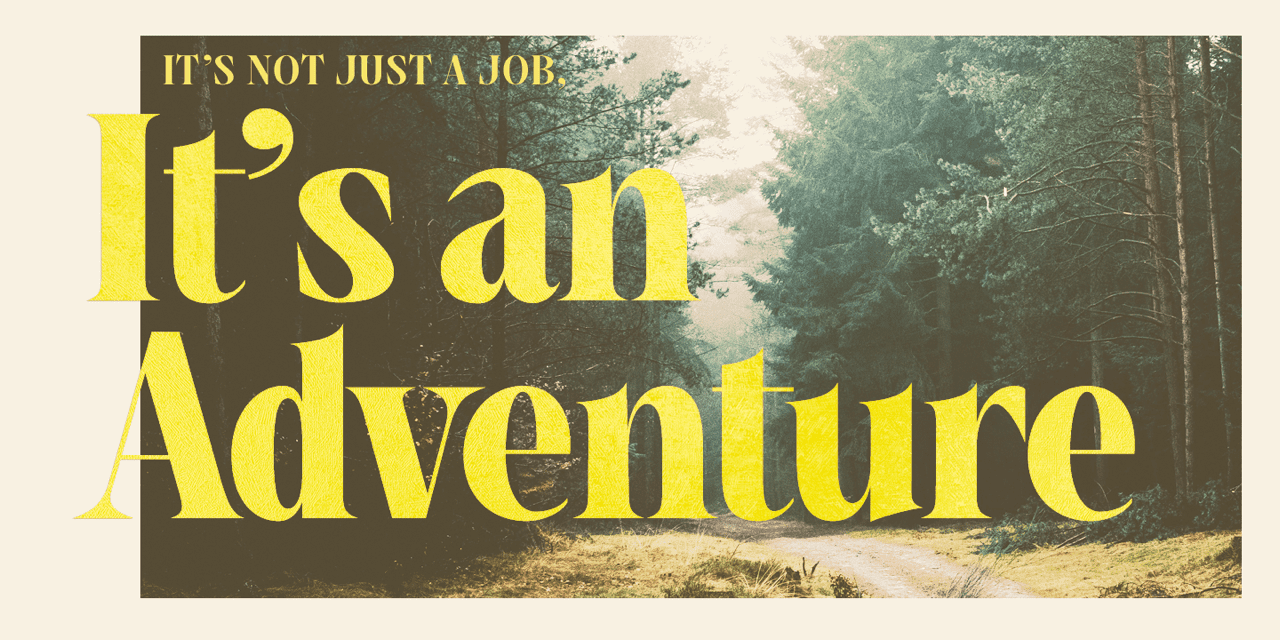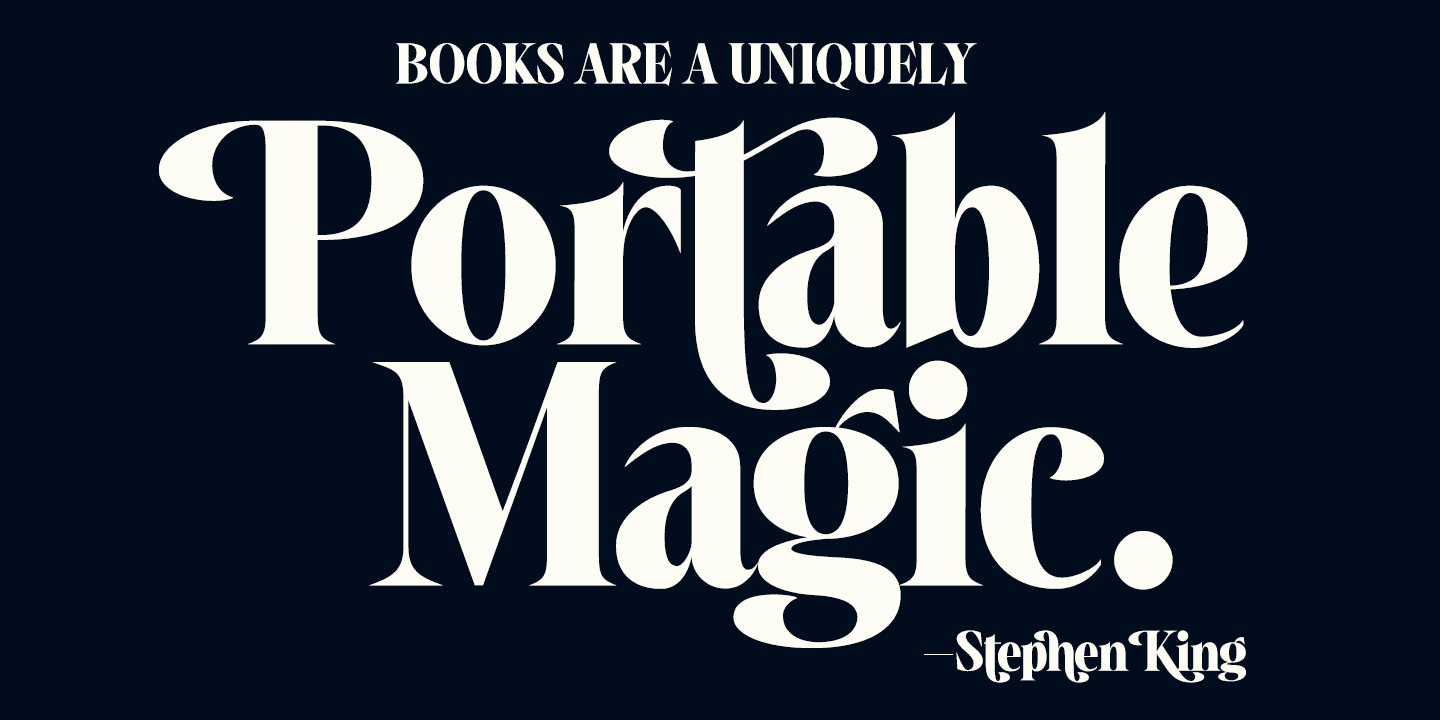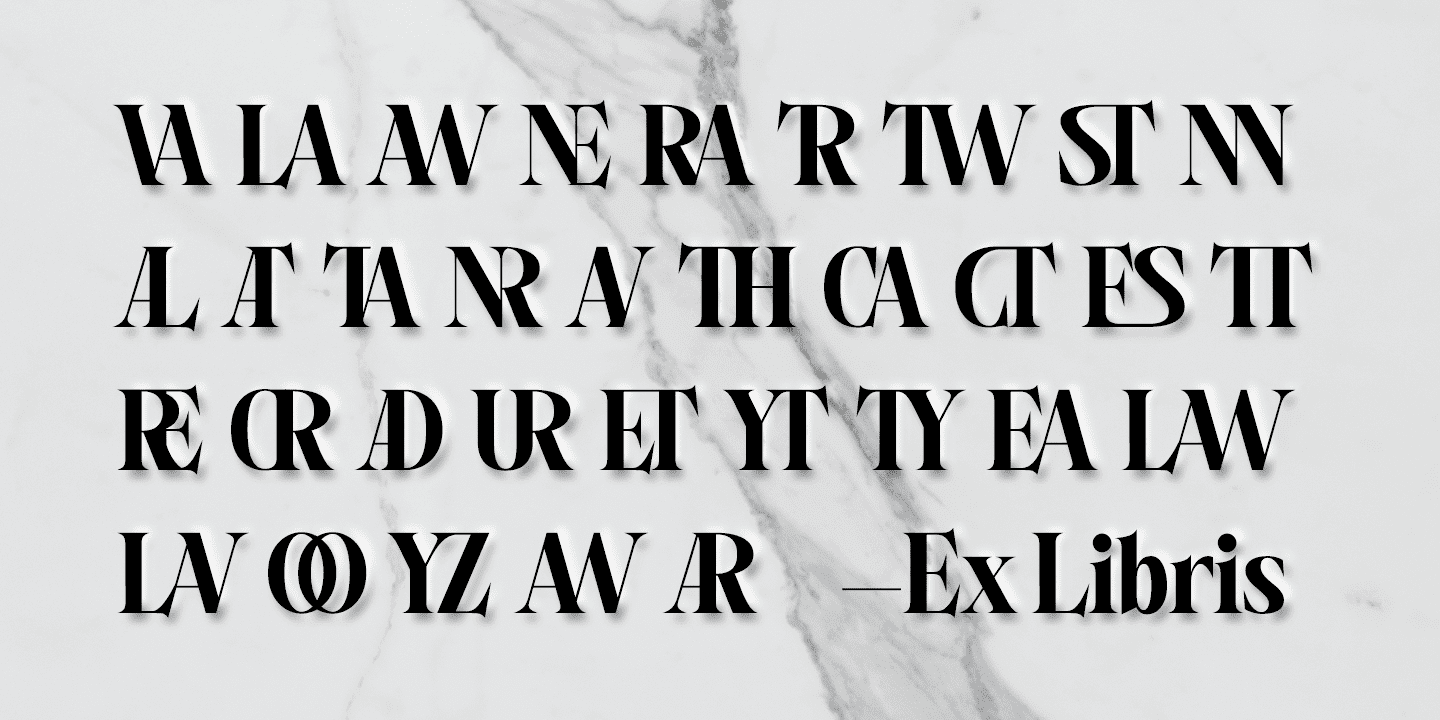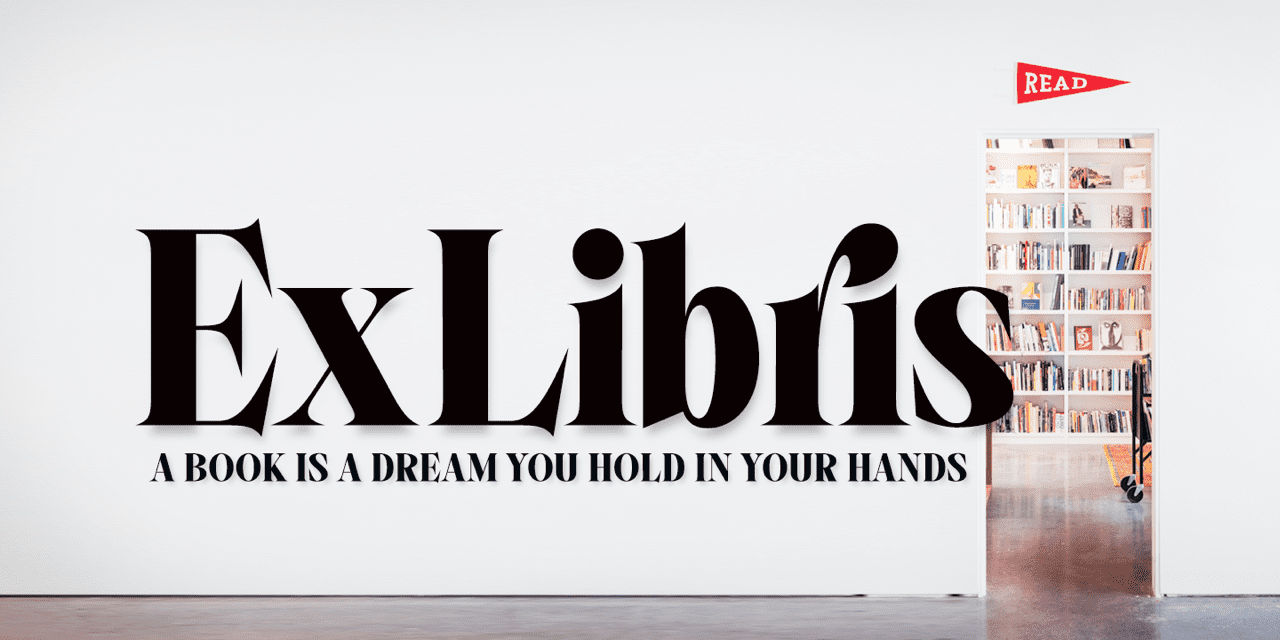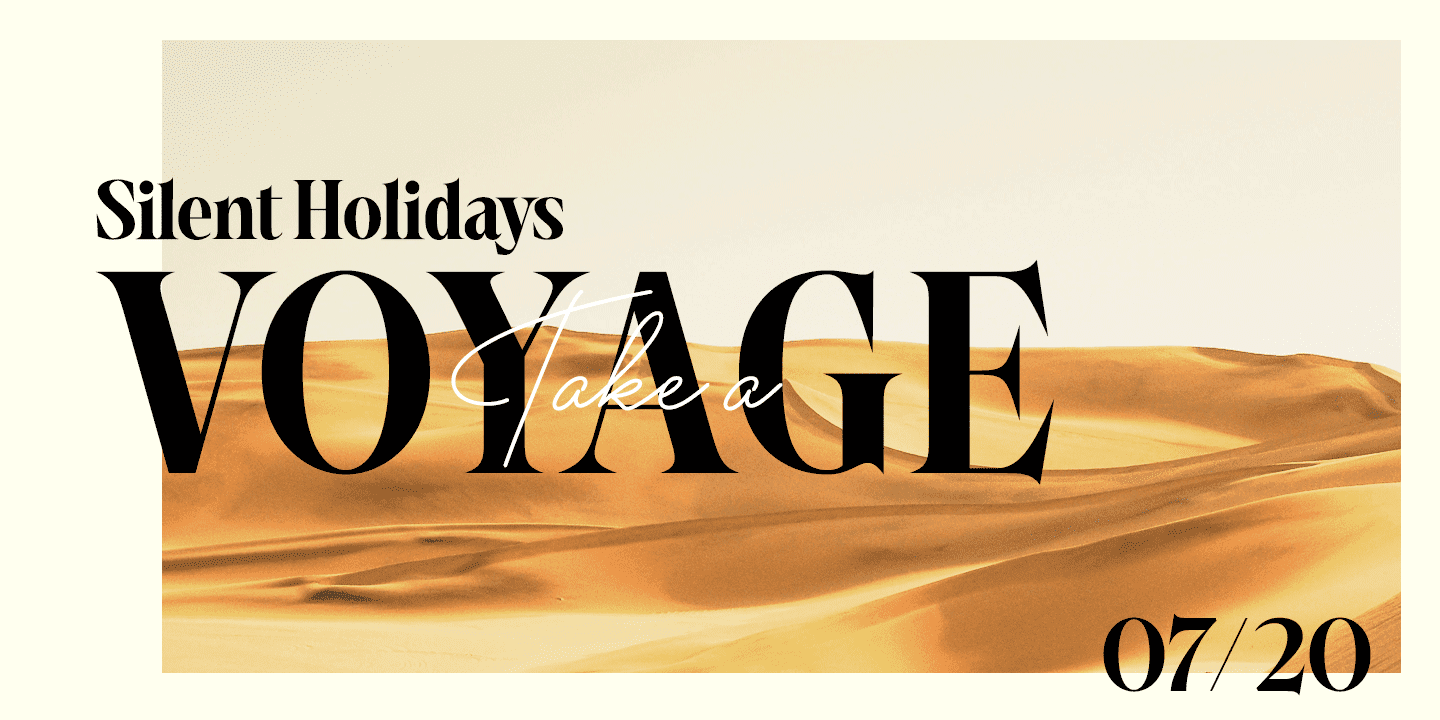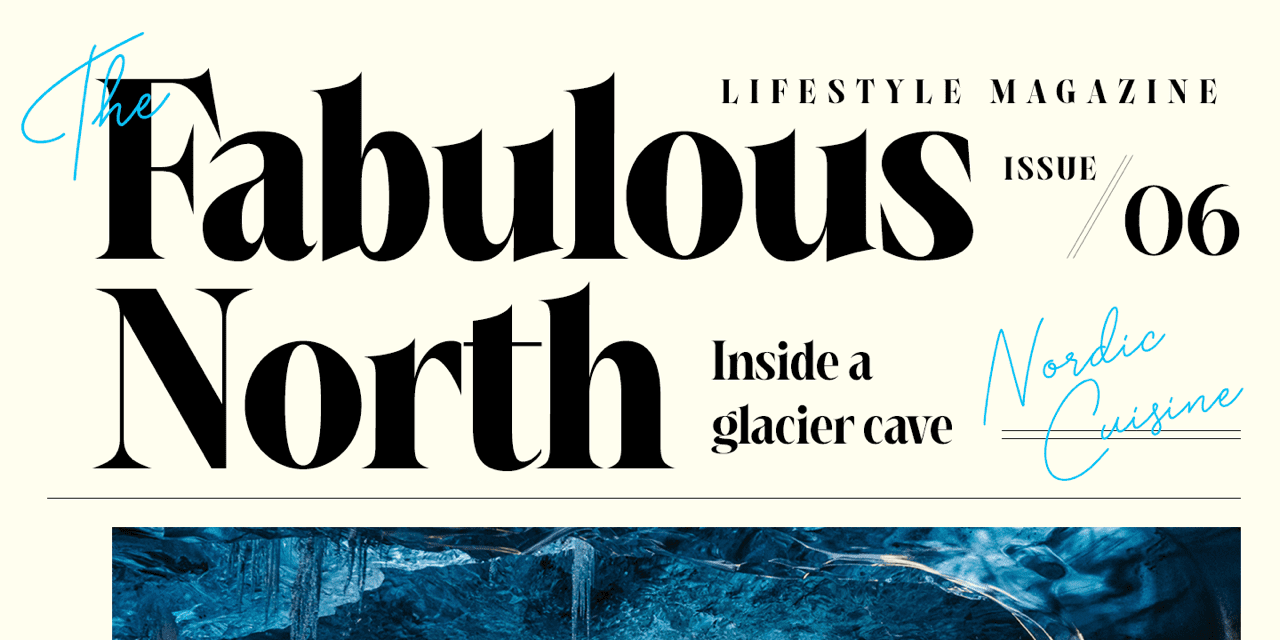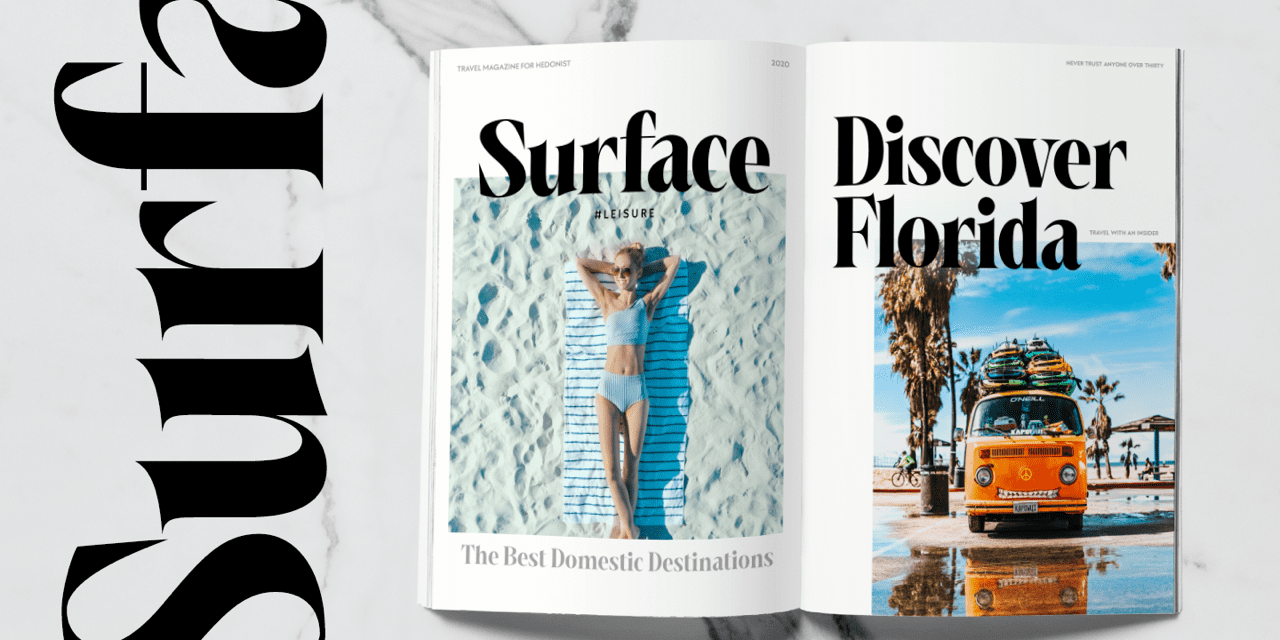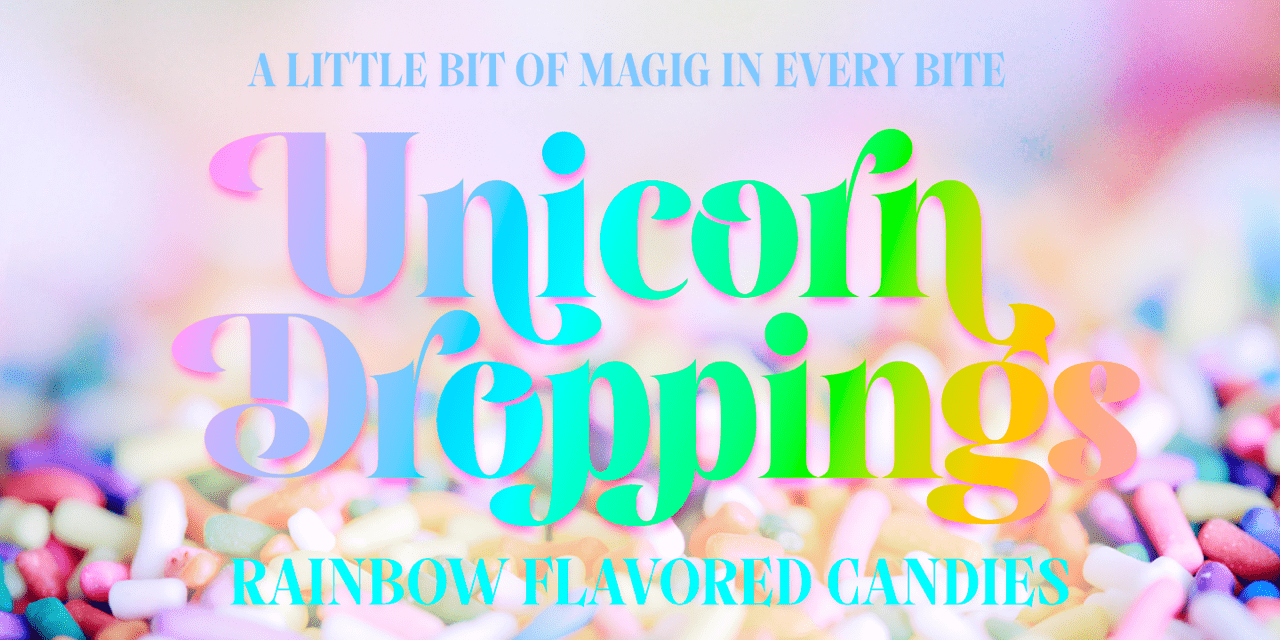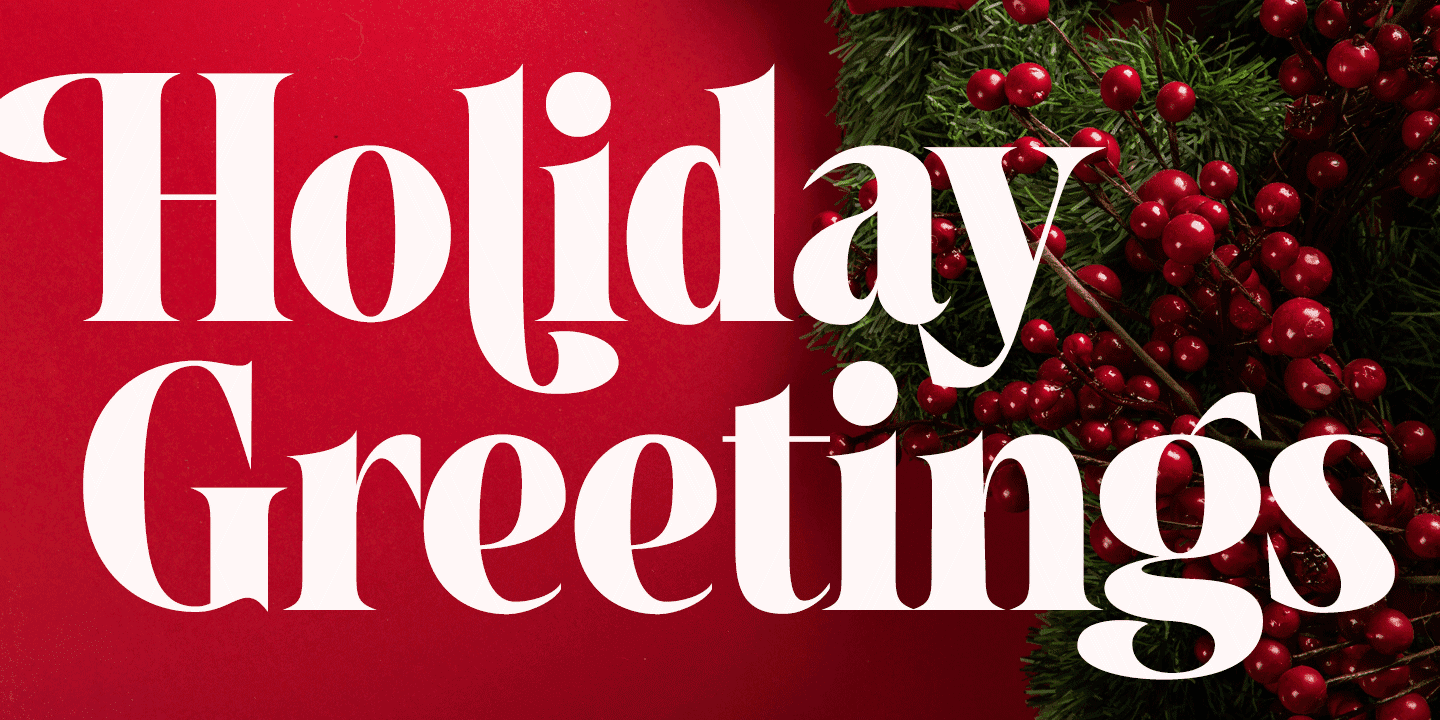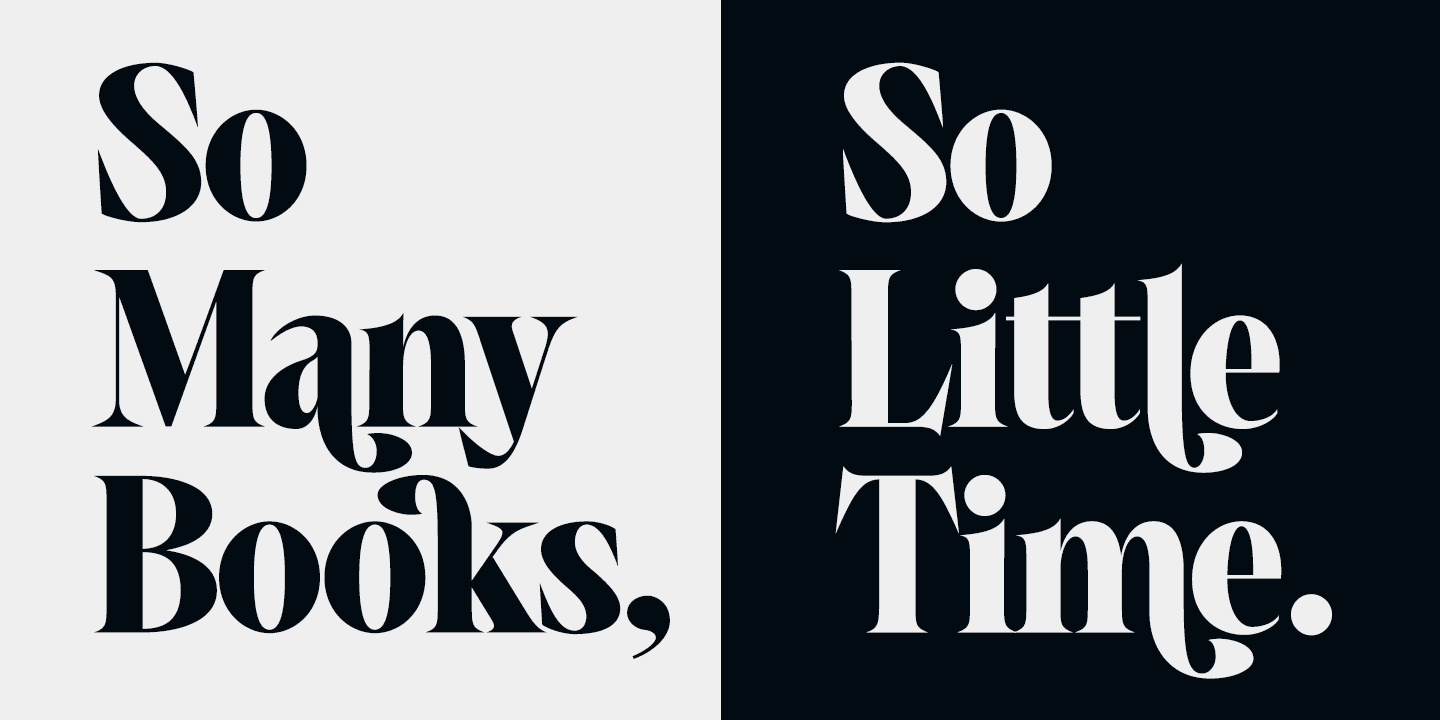
Ex Libris is a high contrasted Flared Serif font family in two weights. Ex Libris is a display type and it’s at its best in headlines, branding, packaging or as a logotype. Try adding some extra flair with Swash, Stylistic or Titling Alternates or wield any of Ex Libris’s 33 Discretionary Ligatures when typing in caps.